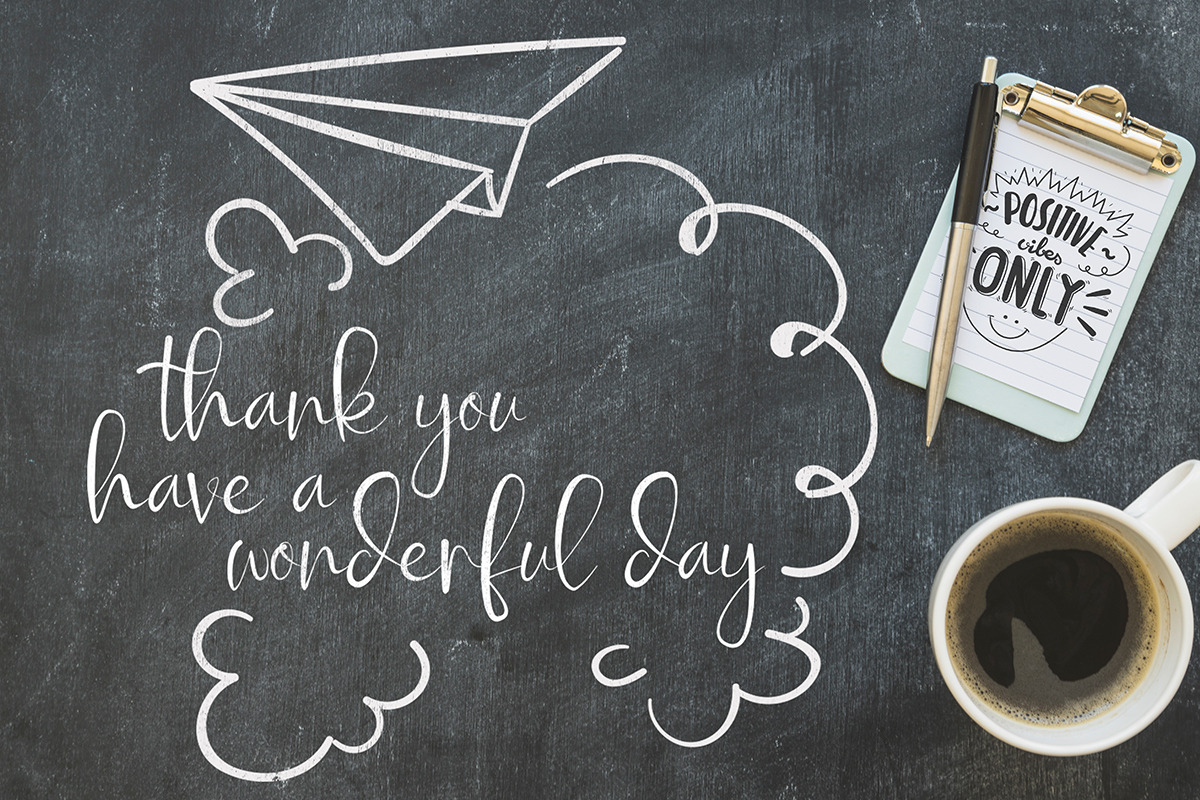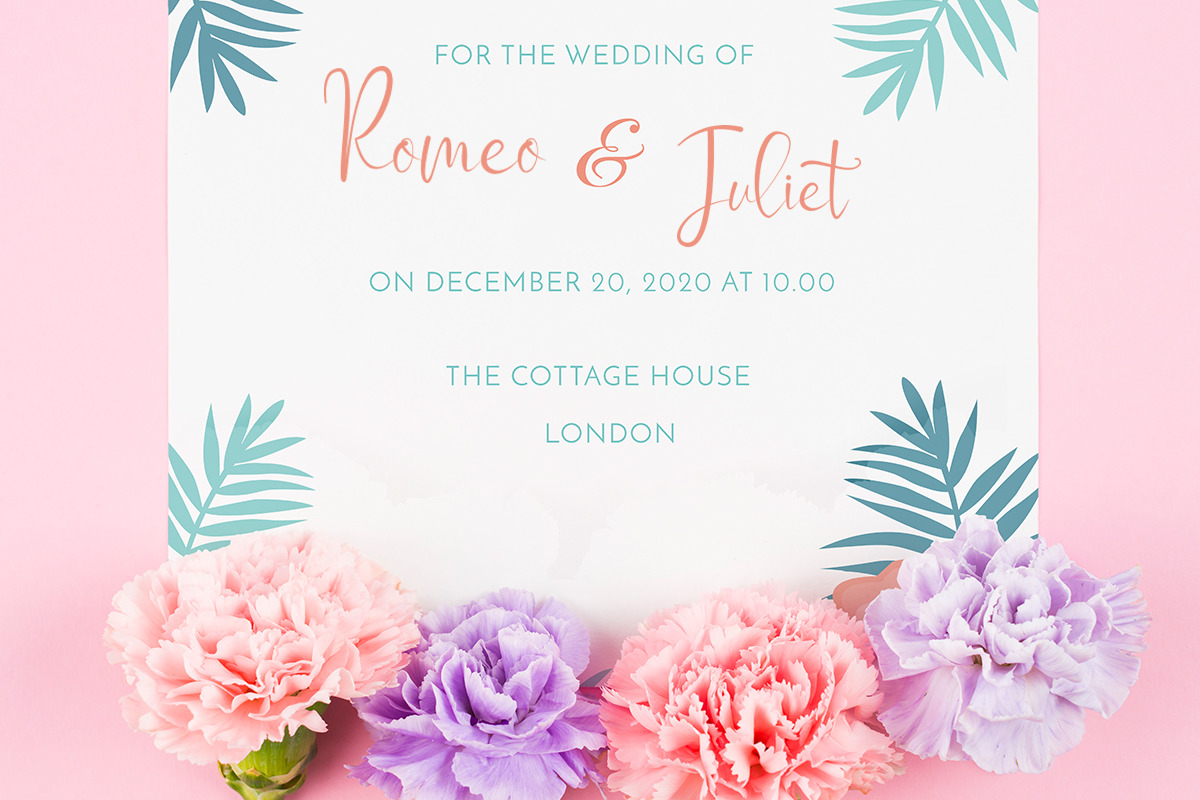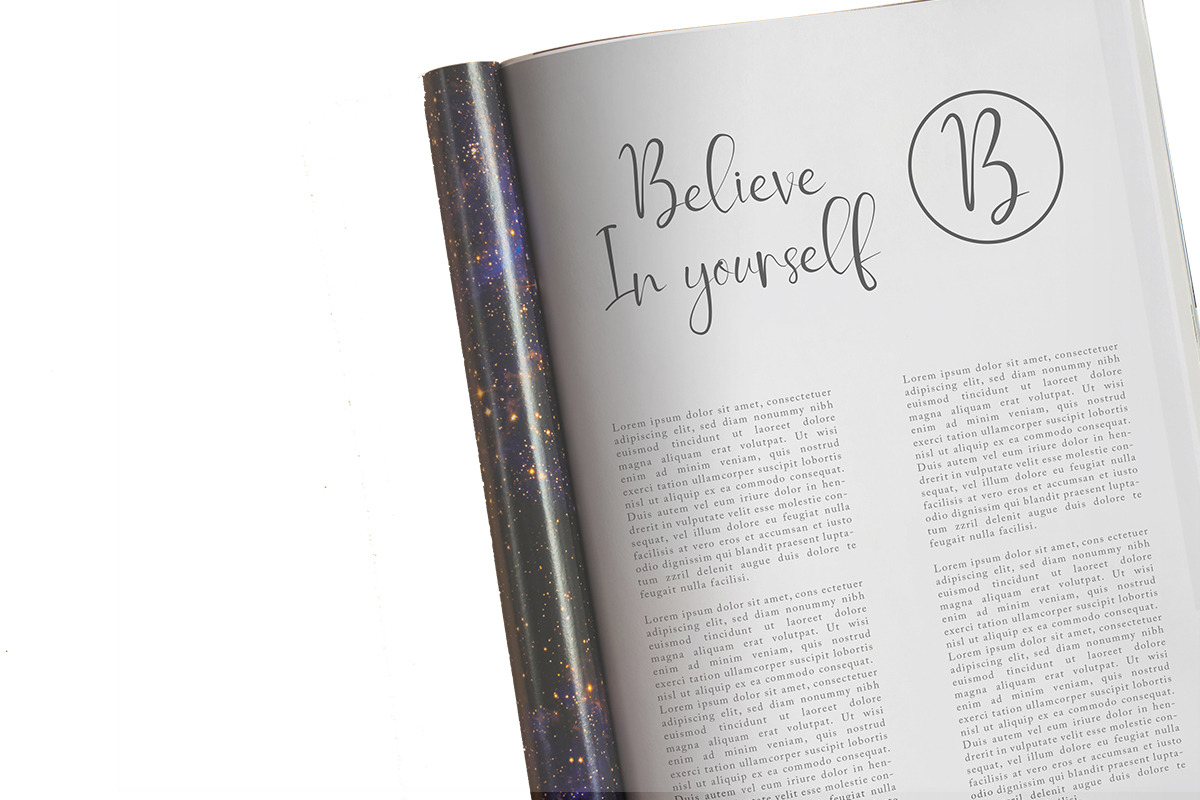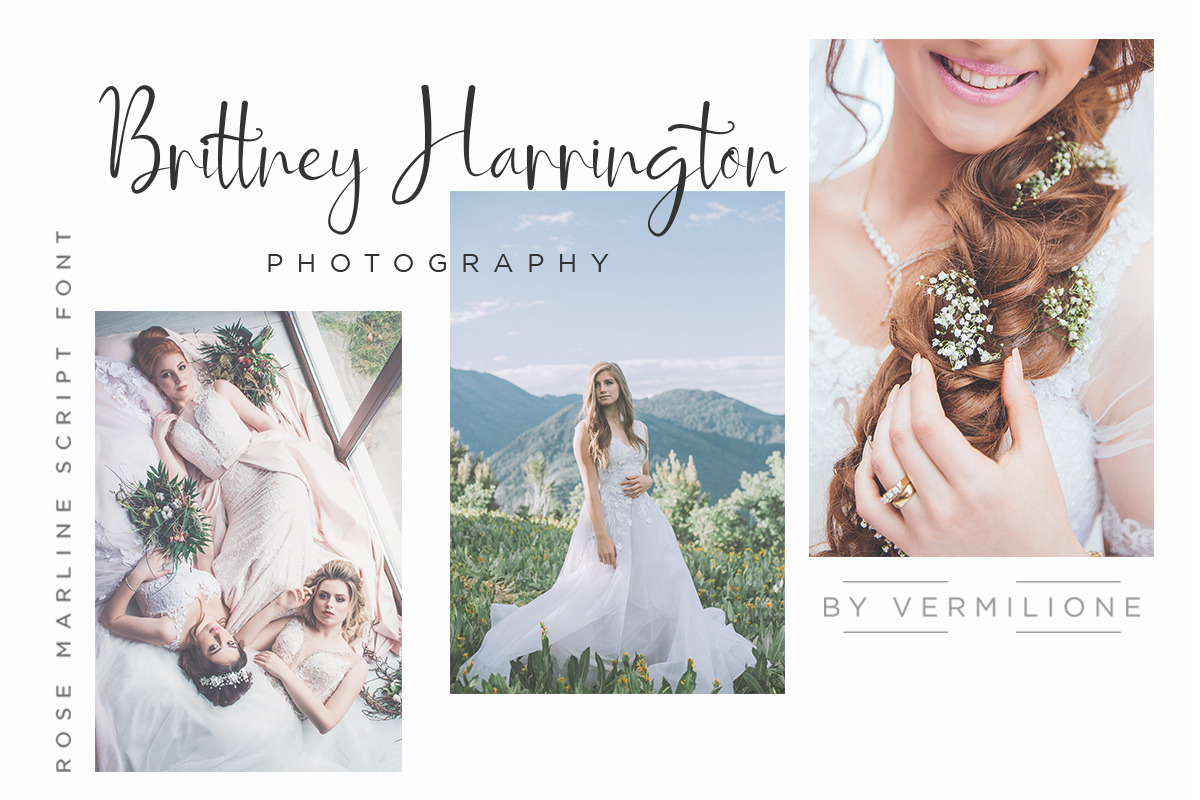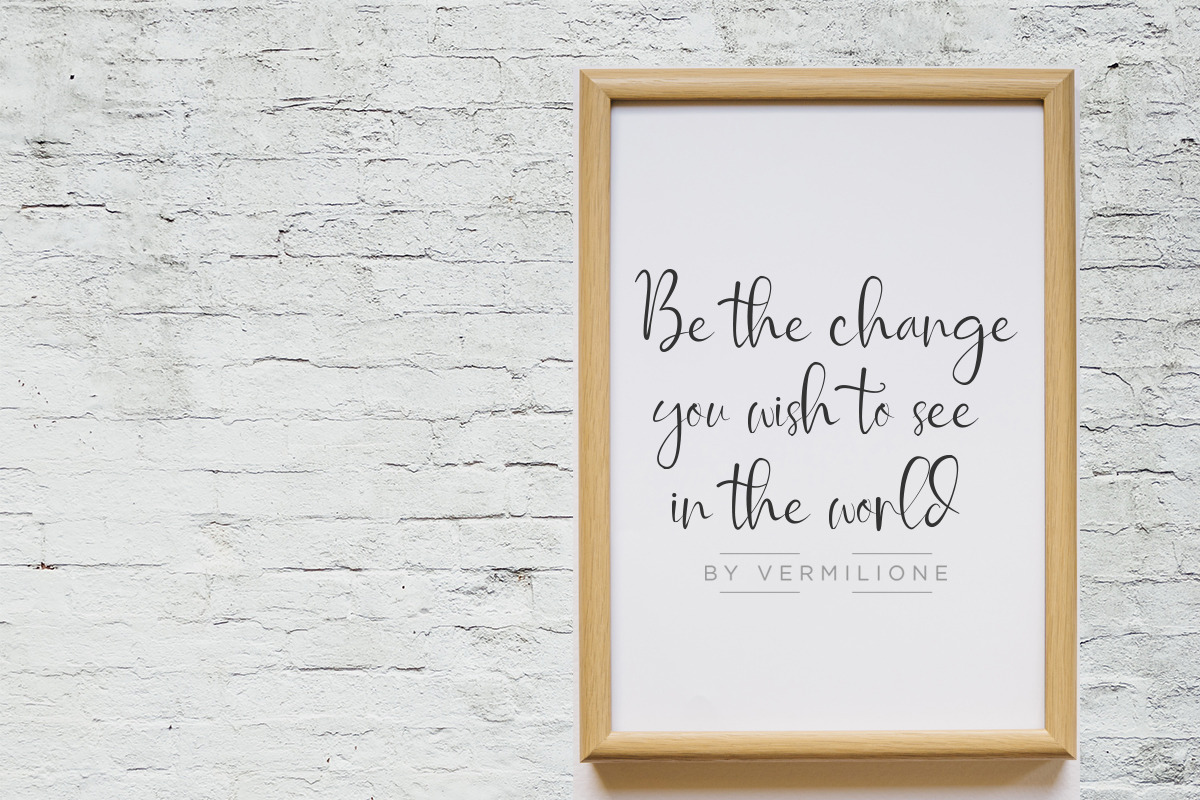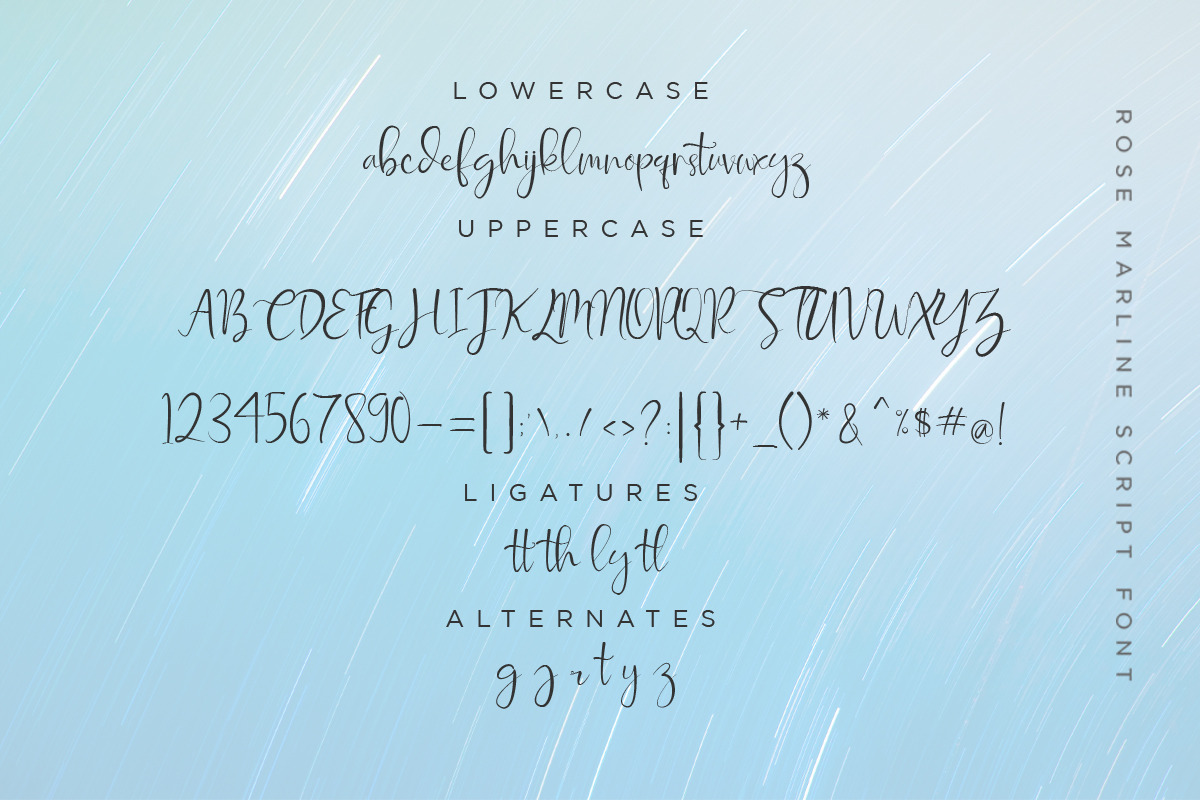
Rose Marline
Rose Marline Modern Script ,
I hope you are interested in this font, if you want to use for your work this font can be used easily and simply because there are a lot of features in it to contain a complete set of letters lower and uppercase letters, assorted punctuation, numbers, and multilingual support. font also contains several ligatures and alternate style Stylistic Sets for those of you who have software that is able to work OpenType (Photoshop / Illustrator / InDesign).
Rose Marline is suitable use for market design developed at this time, this font has a model Trendy, natural and gentle, with this font you can take advantage of the opportunity in every moment of one wonderful way to highlight the celebration of the feast of your best, because this font will be advocates for purposes such as wedding invitations, party, graduation, birthday, gathering, etc.